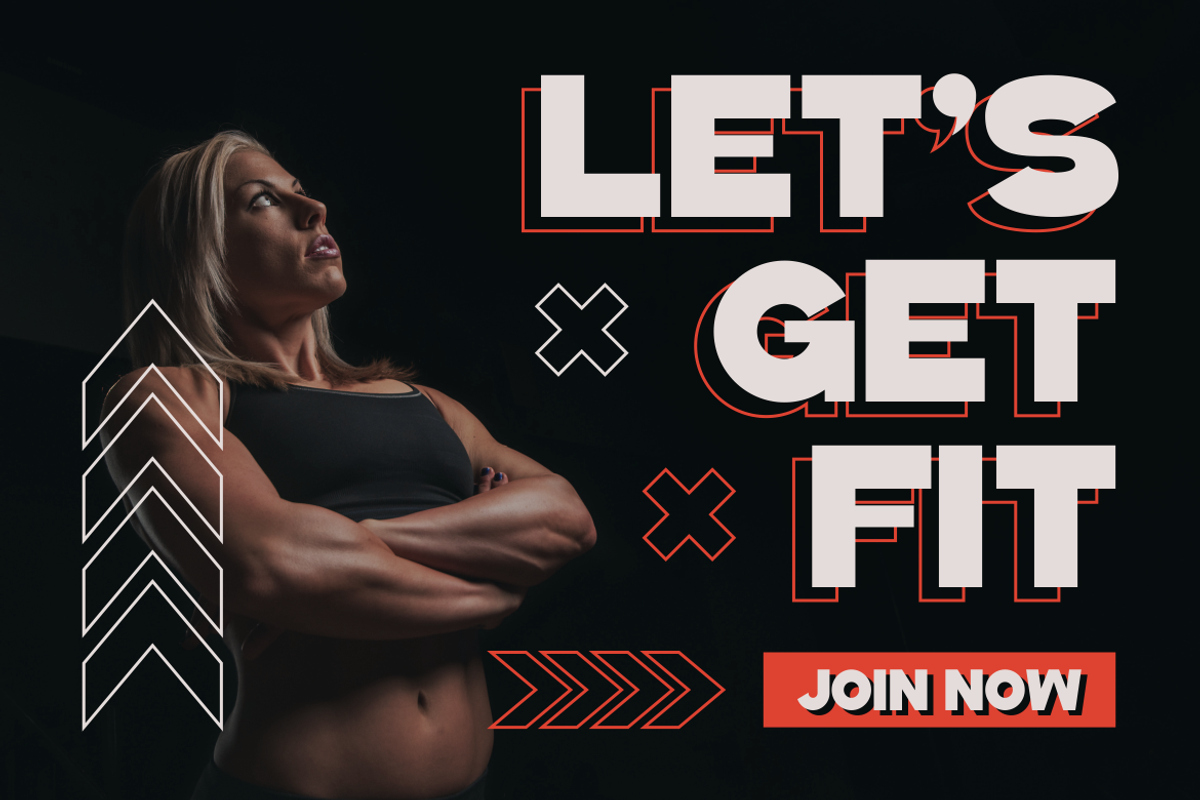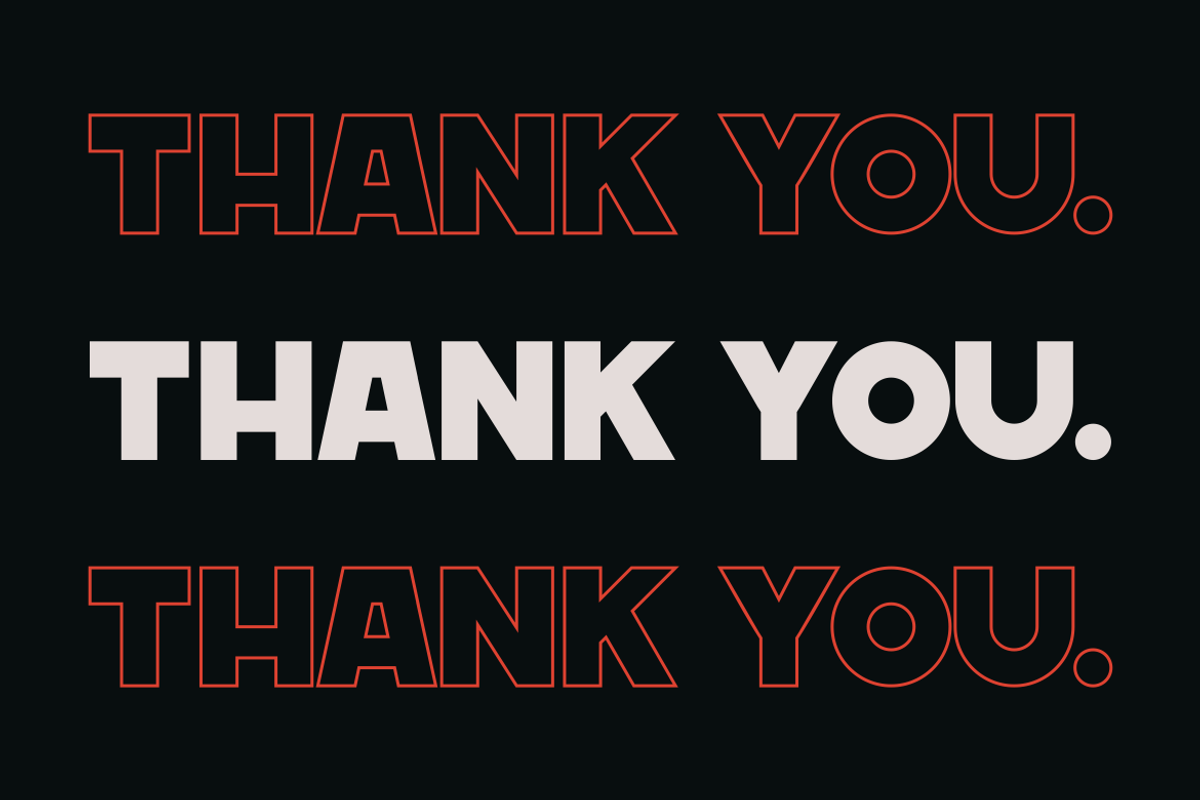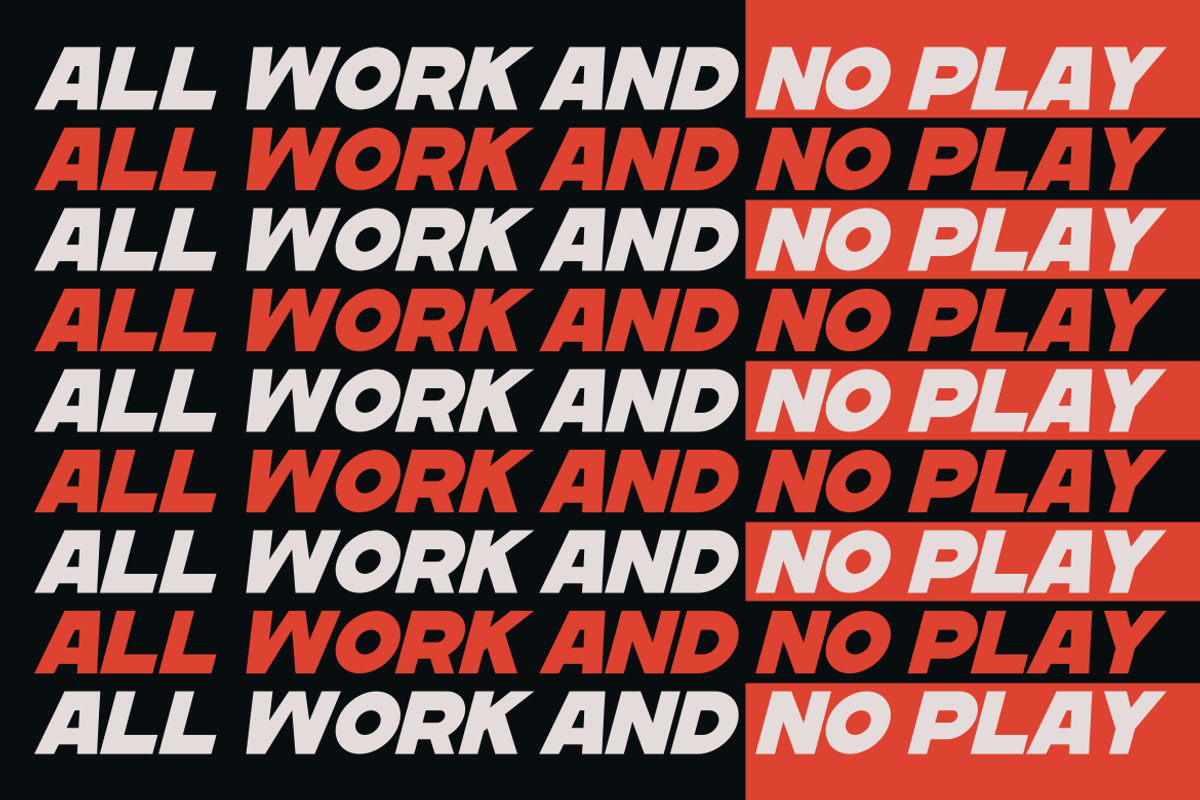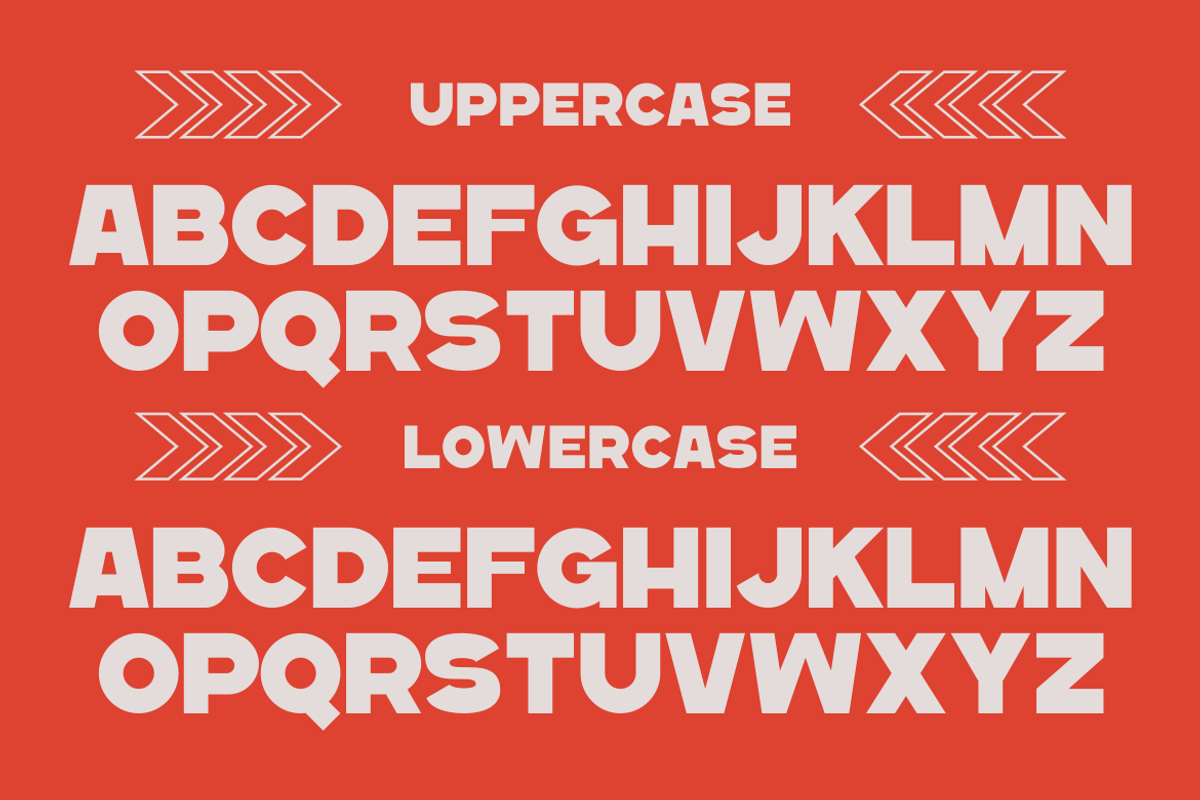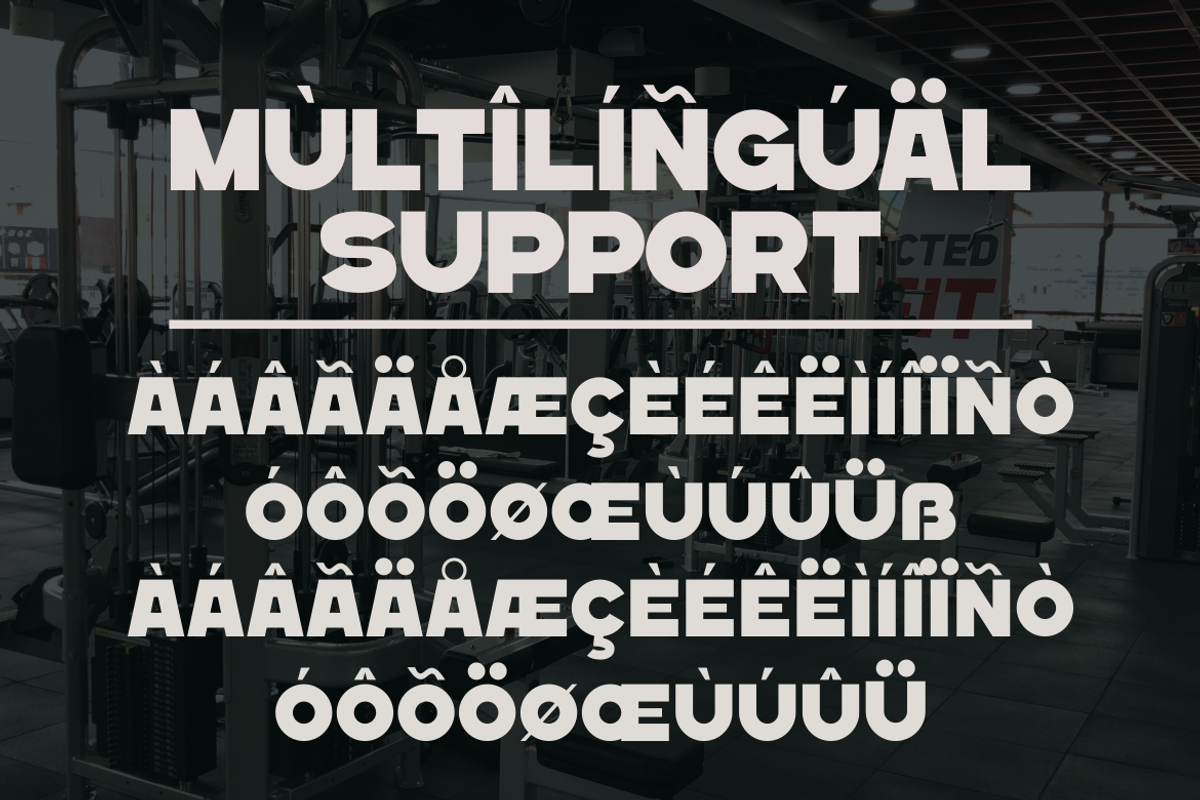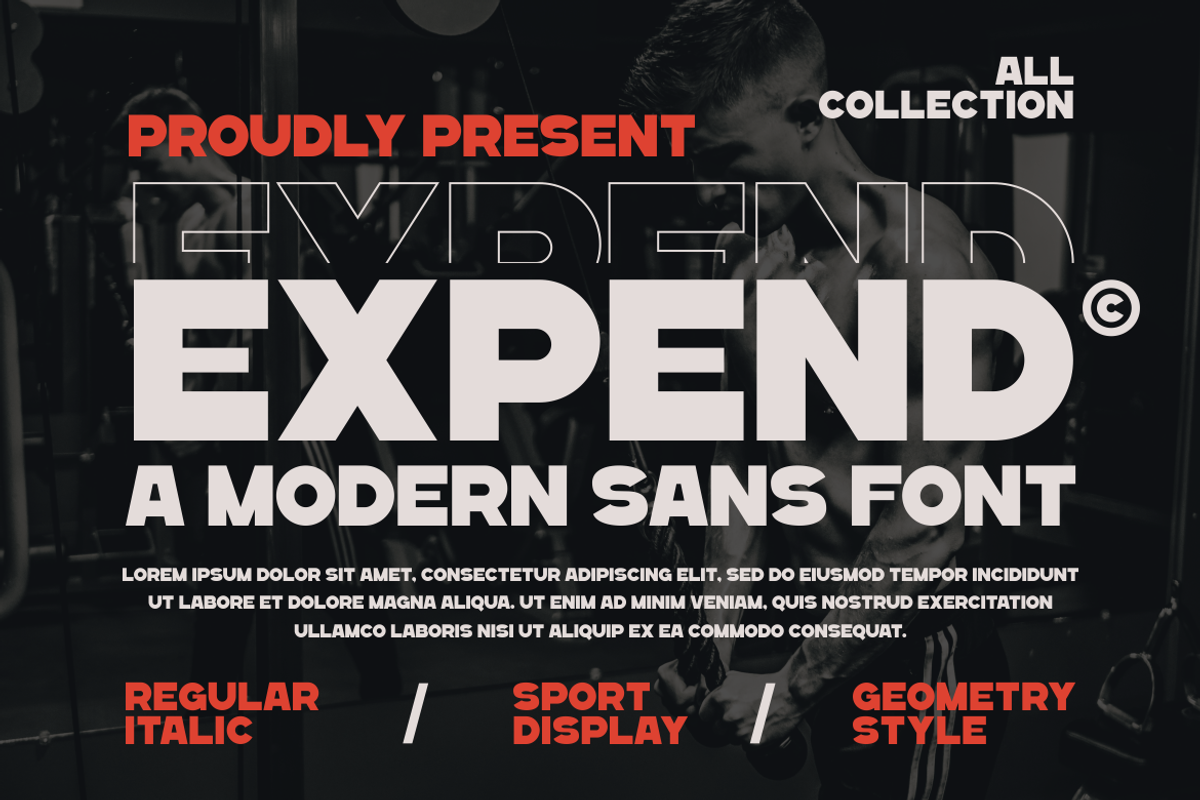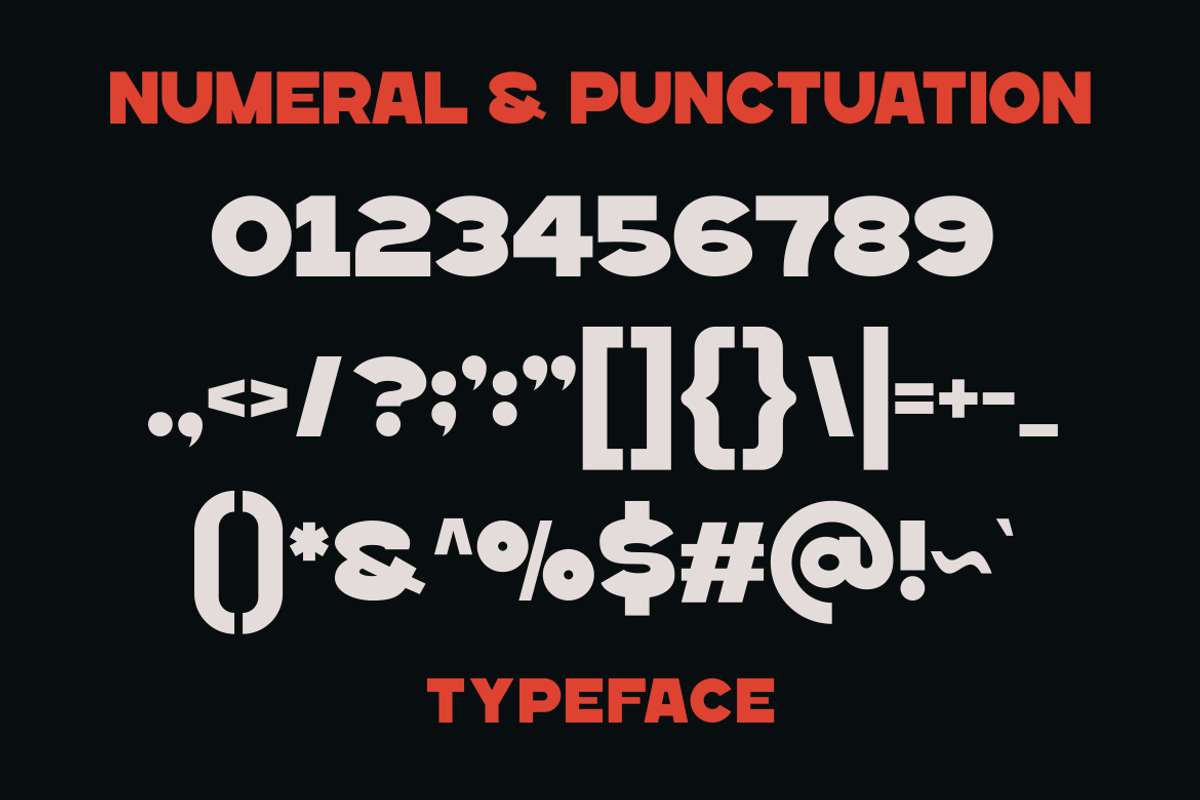
Expend - A Modern Sans Serif Font
Introducing our new product EXPEND Font - Modern Font EXPEND Font** - Modern Font is a bold and authentic display font. The font is suitable for any branding project like logo, Template Design, Product and many more. outstanding in a wide range of contexts.